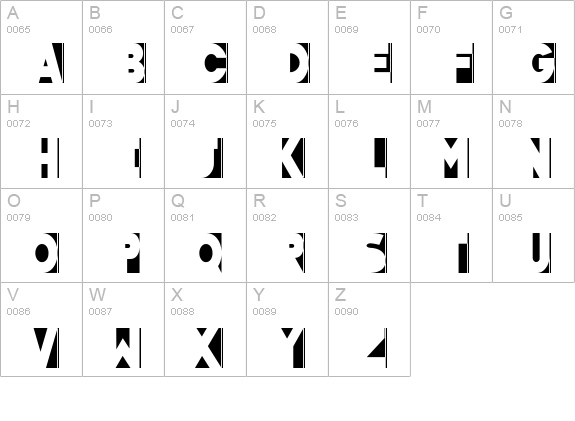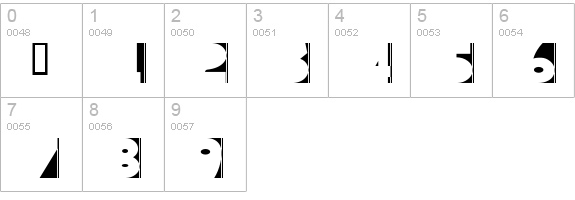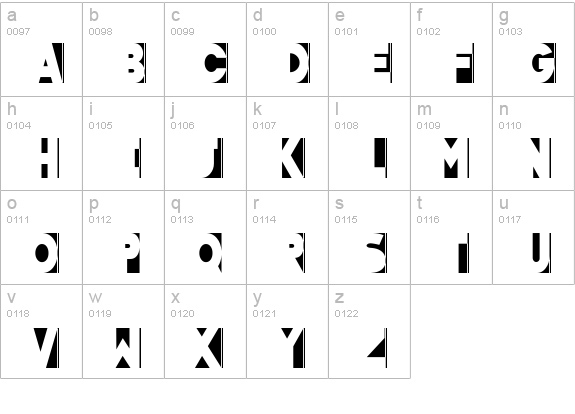
Good VibesBackbeat Font Details
Good VibesBackbeat font is a lively and energetic typeface that exudes positivity and creativity. Its playful and flowing design is perfect for projects that require a fun and upbeat aesthetic. The unique combination of bold strokes and whimsical curves gives this font a distinctive look that is sure to make your designs stand out. What's even better is that Good VibesBackbeat font is completely free to download at FontsMarket.com. Whether you're working on a poster, social media graphics, or any other design project, this font will bring a burst of positive energy to your work. Embrace the good vibes and let your creativity shine with Good VibesBackbeat font.